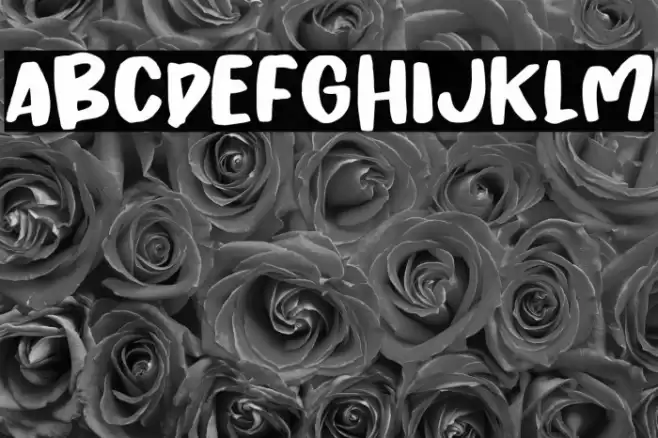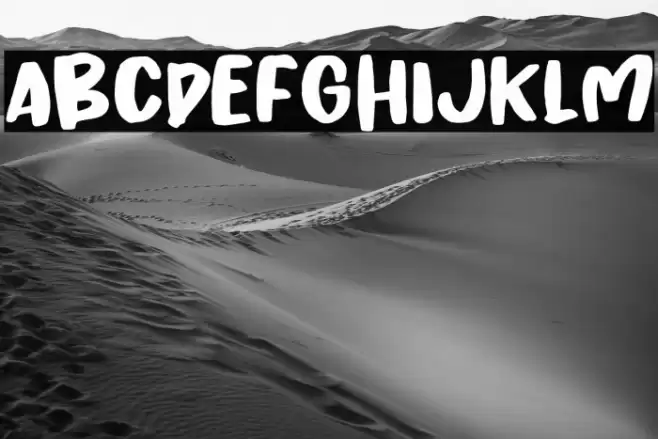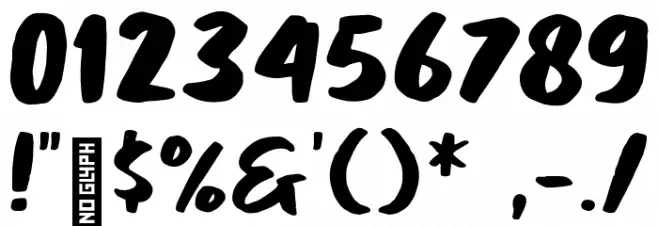
Chicken Crispy Font
Chicken Crispy Description
This font features a bold and playful handwritten style, characterized by its thick strokes and rounded edges. The letters have an informal, casual appearance, making them ideal for projects that require a friendly and approachable tone. The uppercase and lowercase letters maintain a consistent style, with a slight slant that adds to the dynamic feel of the font. The numbers and special characters are equally bold, ensuring readability and visual impact. This font's unique style makes it stand out, perfect for creative and artistic projects.
A bold, playful handwritten font with thick strokes and rounded edges from Uncategorized fonts.
- Font: Chicken Crispy
- Proposed Projects: Ideal for children's books, playful branding, posters, and social media graphics.
- Overall Style: Playful, Casual